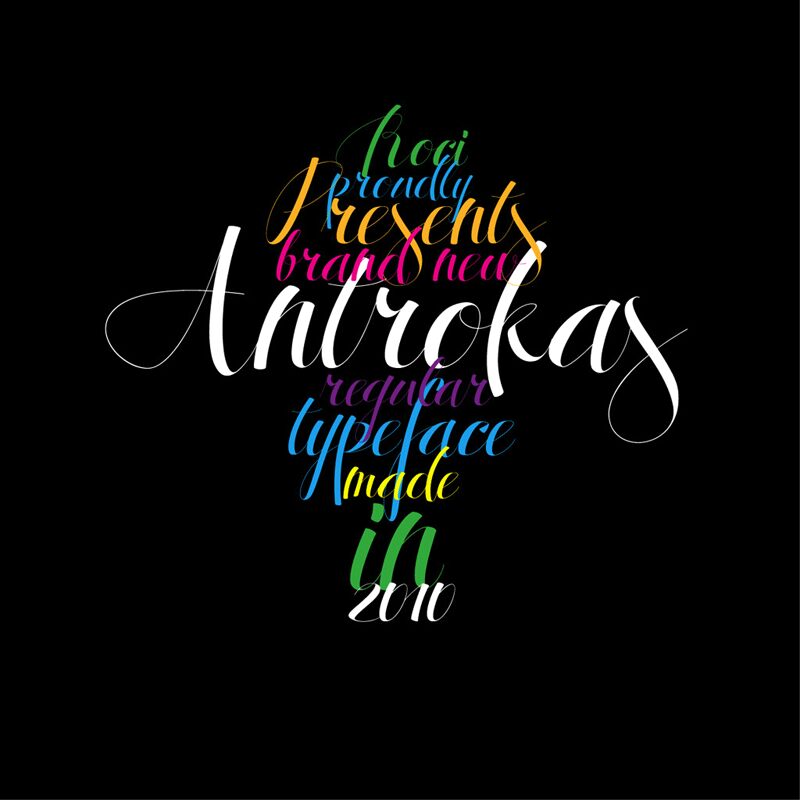
Antrokas by Roci is a free calligraphic script with dramatic stroke contrast and long, hairline flourishes. Its tall, sweeping forms shift between broad downstrokes and fine loops, giving the lettering an elegant but lively pace.
Wedding invitations and fashion branding draw on the same graceful movement, though one feels ceremonial and the other more editorial. It also suits perfume packaging and event posters with a refined, expressive direction. In magazine design, the extravagant capitals can turn a cover line into an ornamental feature rather than ordinary display text on the page.